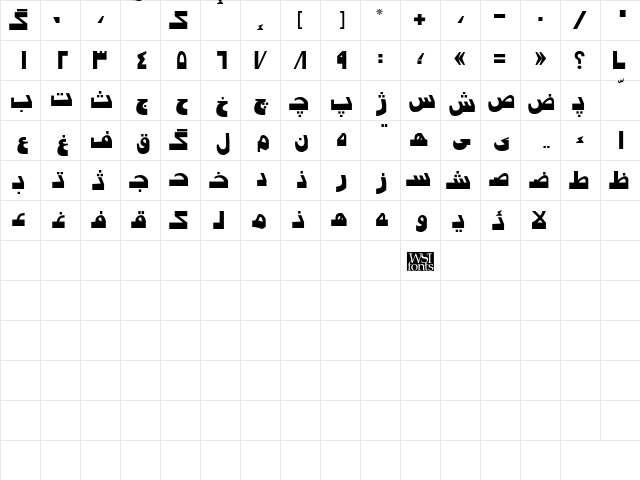
PersianUltra Regular
Design Context for PersianUltra Typeface
PersianUltra takes a measured approach to typography — its balanced proportions and neutral character make it a reliable workhorse for both digital and print work.